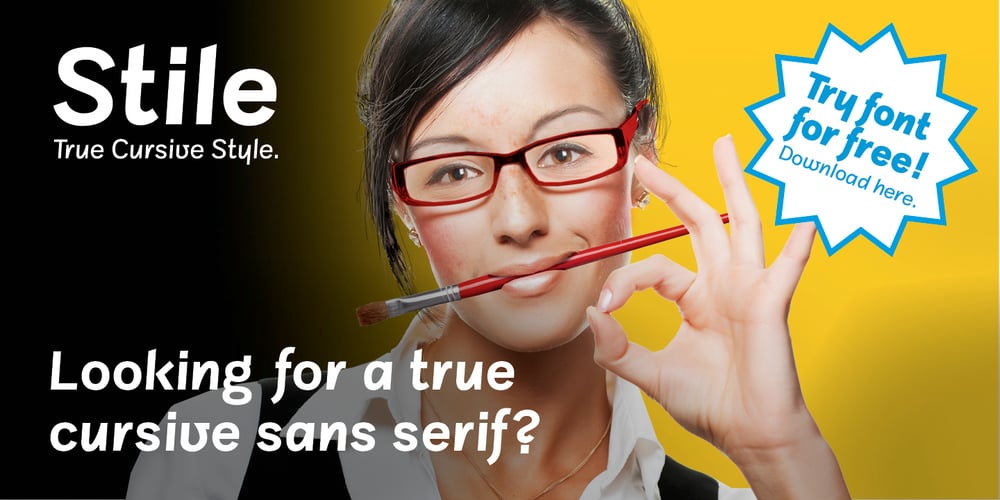
Stile
Stile font
Stile Font Family was designed by Filippo Salmina and published by FSdesign-Salmina. Stile contains 11 styles and family package options. Are you looking for a true cursive sans serif? Stile is a true cursive with moderate inclination. Its cursive character has mainly to do with writing-speed. Therefore it may serve also as copy font and not only for emphasizing purposes. Stile has a good readability and is really flexible and universally applicable. Stile is a sans serif and renounces to an excessive use of ligatures and other explicit calligraphic shapes in order to ensure a contemporary style and a homogenous text color. The whole font family consists of 8 weights (from ultrathin to black) and offers a wide range of Western and Eastern European special characters, typographical ligatures, uppercase, oldstyle and fraction figures. In addition Stile features a very complete and specifically tailored range of numberings and arrows. Bring a personal style into the artwork, with Stile. Download a free trial version of Stile with a reduced character set. Check it out!